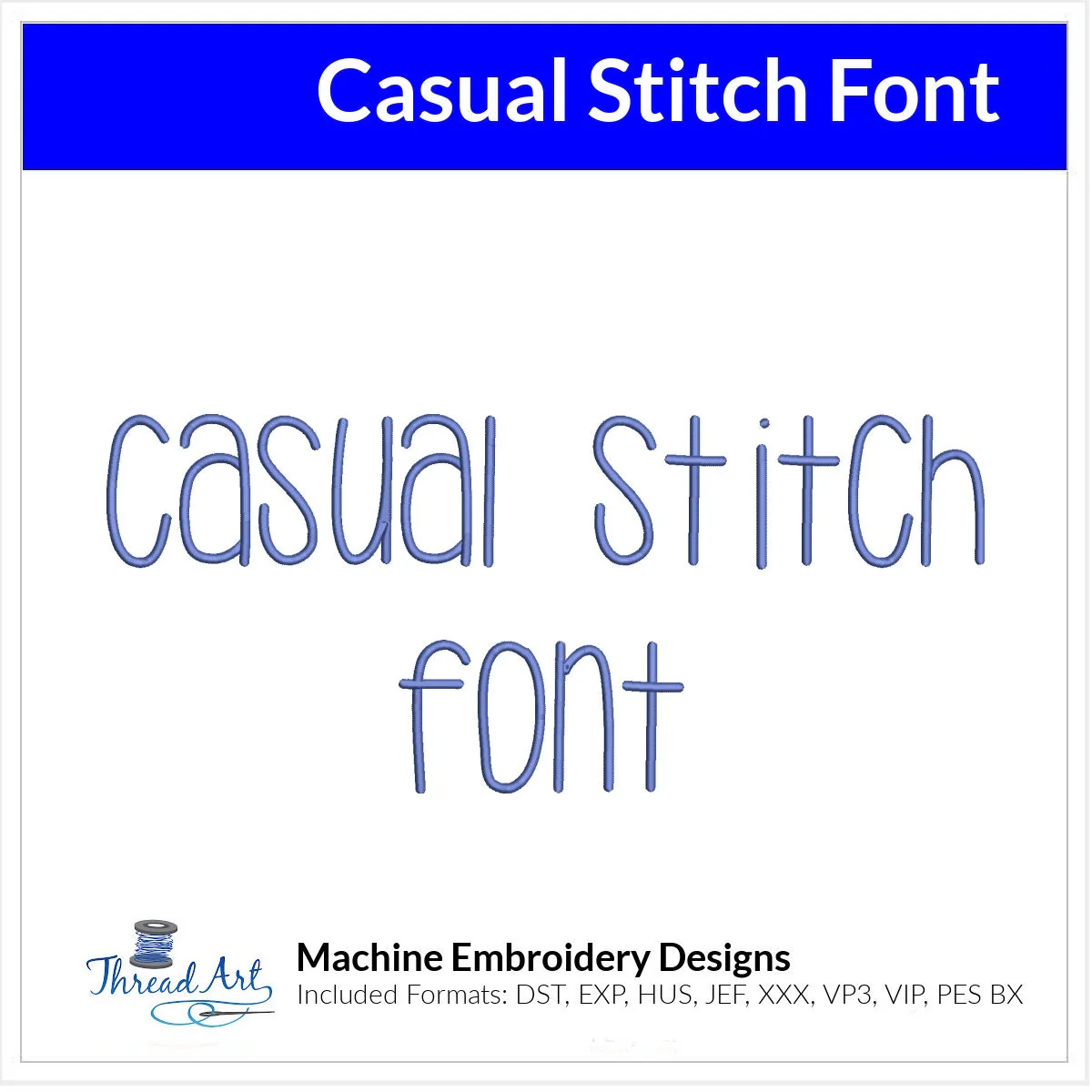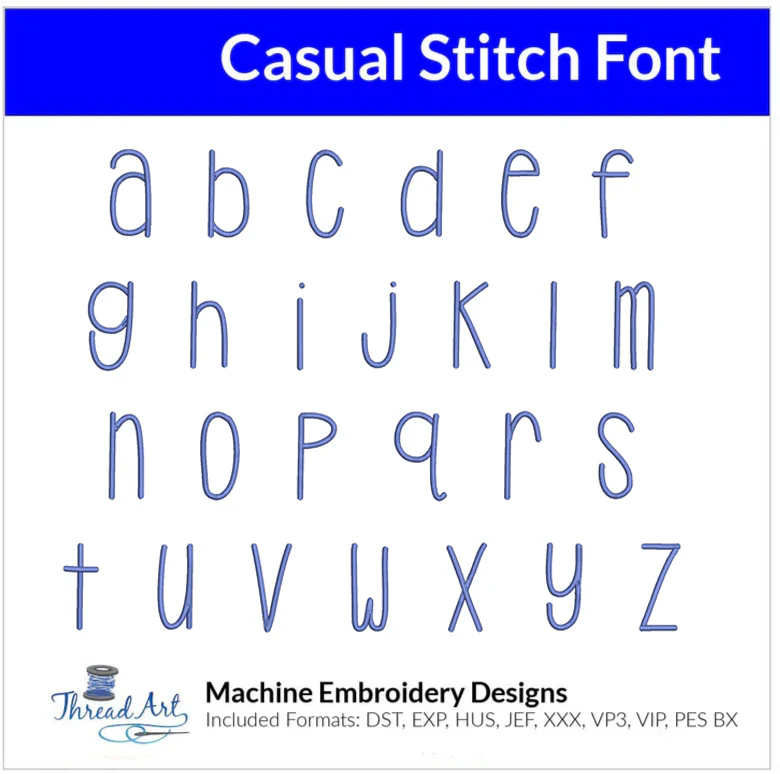
Casual Stitch Font Machine Embroidery Design Set - Fun Font Alphabet Letters BX Font - Download 9 Formats and 3 Sizes
Casual Stitch Font Design -- Machine embroidery font design set with different design sizes included. Letters are 3", 2" and 1" tall and includes a single case that is a fun mix of upper and lowercase letters in popular formats: DST, EXP, HUS, JEF, PES, XXX, VIP, VP3, BX. Convenient for those with multiple machines. Designs will be available for instant download. Ā Choose physical USB stick to have designs sent via mail on a usb stick. 1", 2" and 3" are satin stitch.